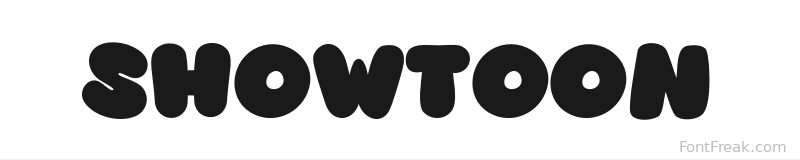
Showtoon
About Showtoon
The Showtoon font by Syaf Rizal is a striking display typeface that captures attention with its unique character. This font features a playful, whimsical design that makes it perfect for a variety of creative projects. Its bold and rounded letterforms contribute to a friendly, inviting appearance, while the moderate stroke weight ensures legibility across different sizes. The spacing between characters is well-balanced, enhancing readability without compromising its decorative flair.
Showtoon is particularly suited for use in children's book covers, vibrant event flyers, and engaging social media graphics. Its fun personality makes it an excellent choice for birthday invitations or party banners, where a lighthearted tone is desired. Additionally, it can be effectively utilized in restaurant menus that aim to convey a casual and welcoming atmosphere. Graphic designers looking for a distinctive typeface to spice up their projects will find Showtoon to be a valuable asset.
What sets Showtoon apart is its ability to blend charm with functionality. The font's playful essence invites creativity while maintaining clarity, making it a standout option in the realm of display typefaces. Whether you're working on a project for a children's event or looking to add some character to your promotional materials, the Showtoon font free download offers a delightful solution that is sure to leave a lasting impression.